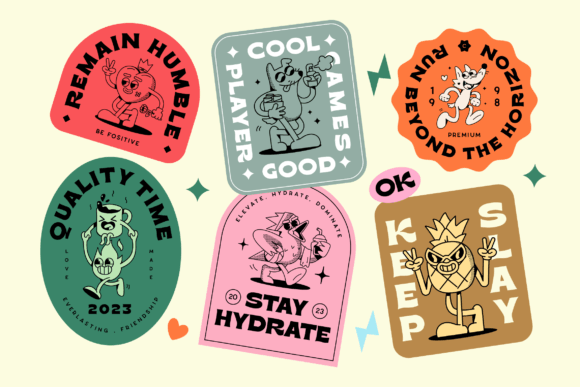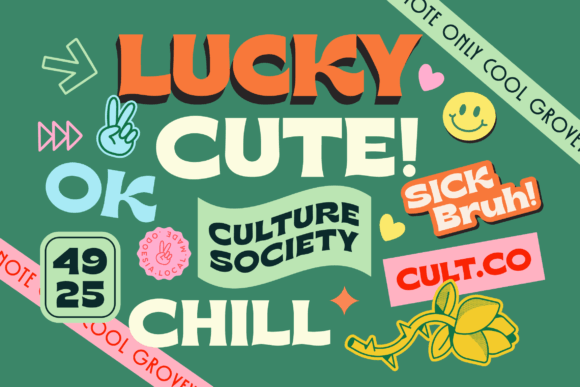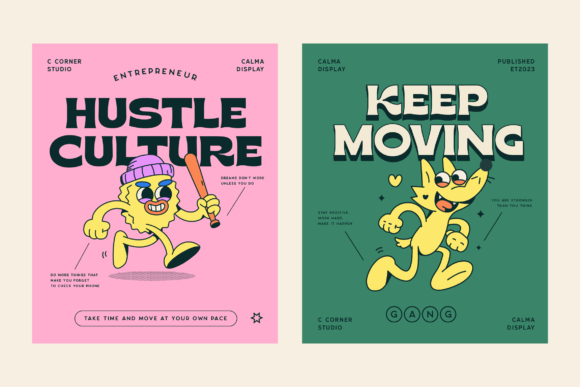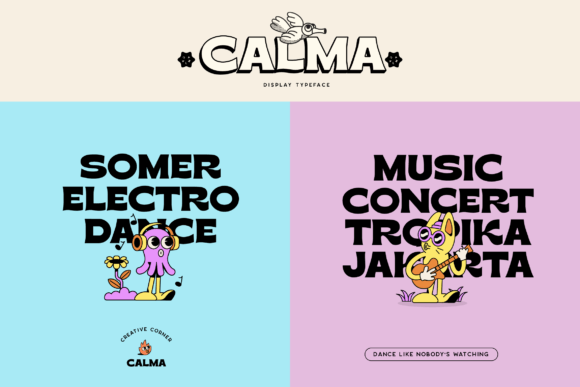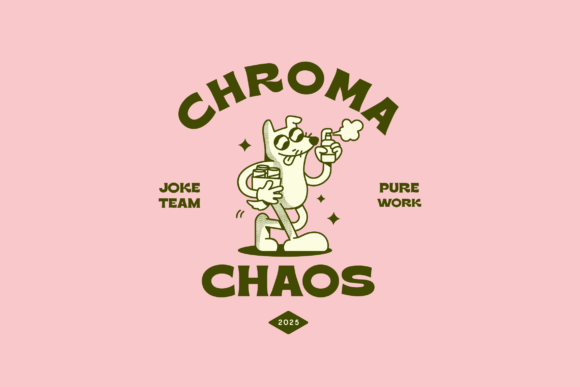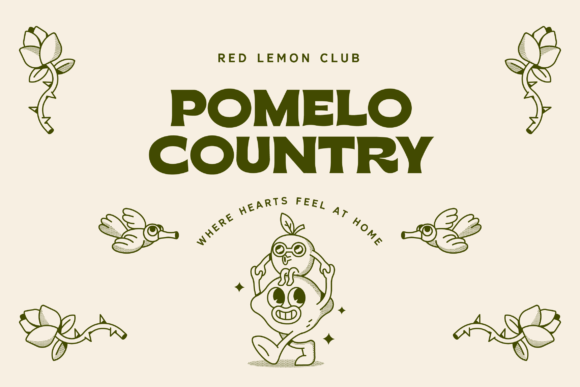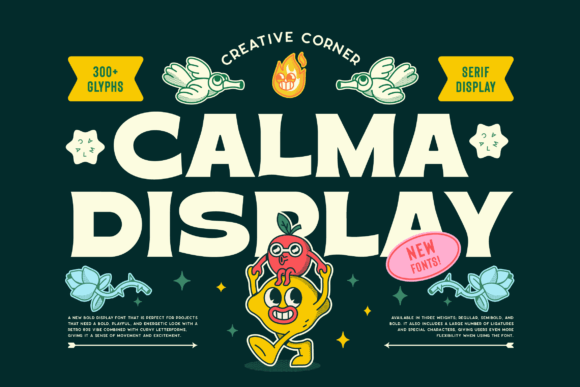
The Ultimate Display Font for a Retro 80s Vibe: Calma Font
I still remember the design project that led me to discover Calma Font. I was working on a branding campaign for a trendy new coffee shop, and I needed a font that would capture the fun, energetic vibe of the 80s. I spent hours scouring font websites, but nothing seemed quite right – until I stumbled upon Calma. Its bold, playful, and curvy letterforms instantly transported me back to the iconic designs of the 80s. I knew I had found the perfect fit for my project!
An Honest Review of Calma Font
• ✨ **Unique Retro Style**: Calma’s slightly expanded stroke endings and curvy letterforms give it a distinctive 80s feel that’s hard to find in modern fonts.
• ✅ **Highly Versatile**: This font is perfect for a wide range of applications, from headlines and titles to posters, packaging, and branding.
• 💻 **Digital-Friendly**: Calma works beautifully in both print and digital formats, making it ideal for use on websites, social media, and more.
• 🔍 **Extensive Ligatures and Special Characters**: With a large number of ligatures and special characters, Calma offers users a wealth of creative possibilities.
While Calma Font is an excellent choice for many projects, there are a few things to keep in mind:
• ⚠️ **Limited Use in Body Text**: Due to its bold and playful nature, Calma may not be the best choice for body text or long-form content.
• 🤔 **Some Letter Combinations May Not Work Well**: As with any font, some letter combinations may not work as well as others – it’s essential to test the font with your specific text.
The Story Behind Calma Font
Calma Font was designed with the goal of capturing the fun, energetic spirit of the 80s. The designer, inspired by classic retro fonts, aimed to create a modern take on the iconic styles of the decade. With its bold, curvy letterforms and extensive ligatures, Calma is the perfect choice for designers looking to add a touch of nostalgia to their work.
What type of projects is Calma Font best suited for? Calma Font is perfect for projects that need a bold, playful, and energetic look with a retro 80s vibe, such as headlines, titles, posters, packaging, and branding.
Does Calma Font include any special characters or ligatures? Yes, Calma Font includes a large number of ligatures and special characters, giving users a wealth of creative possibilities.
Is Calma Font suitable for body text or long-form content? Due to its bold and playful nature, Calma Font may not be the best choice for body text or long-form content. It’s better suited for headlines, titles, and short-form text.